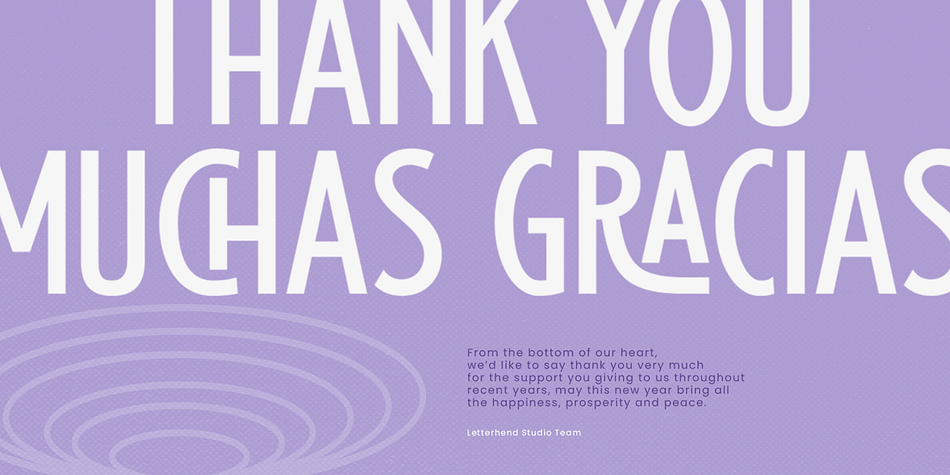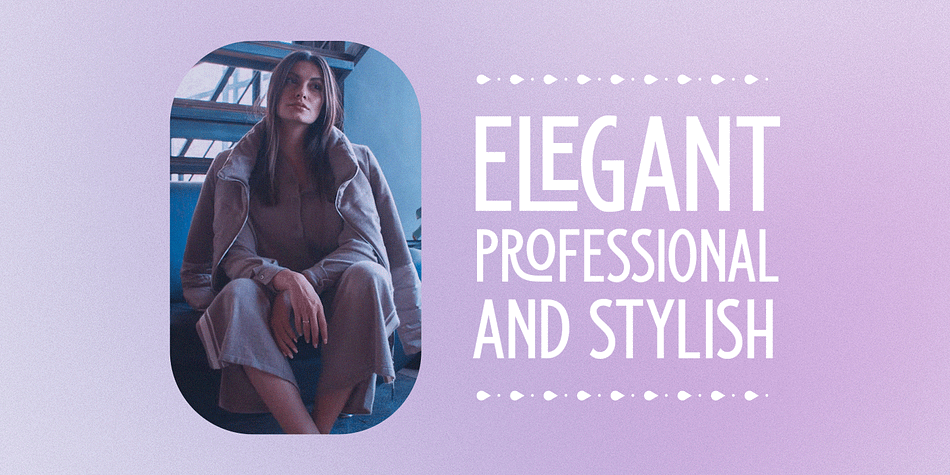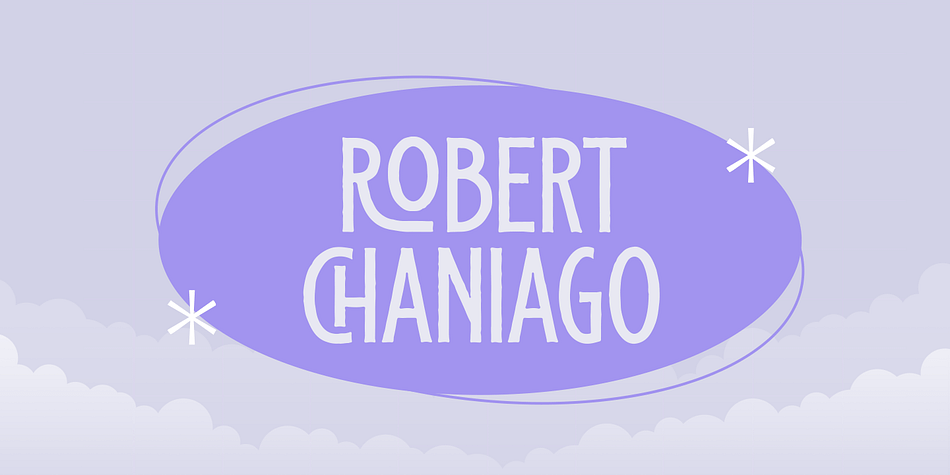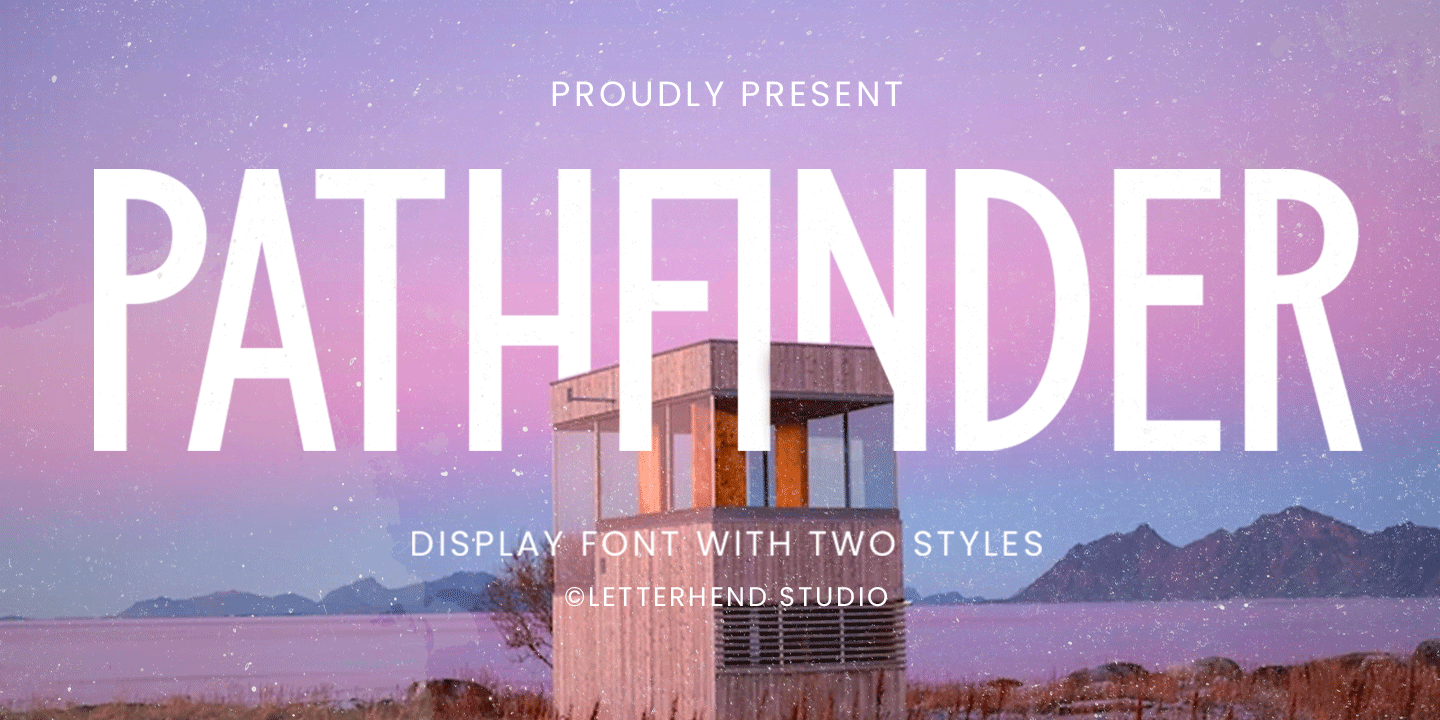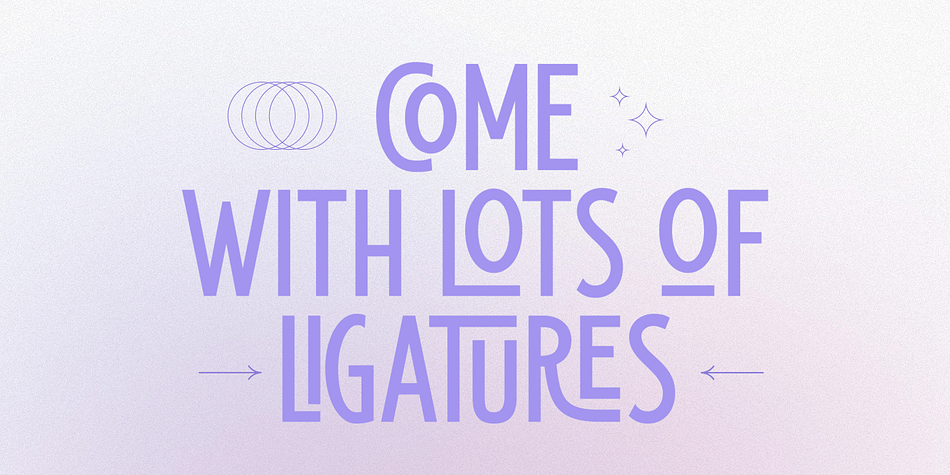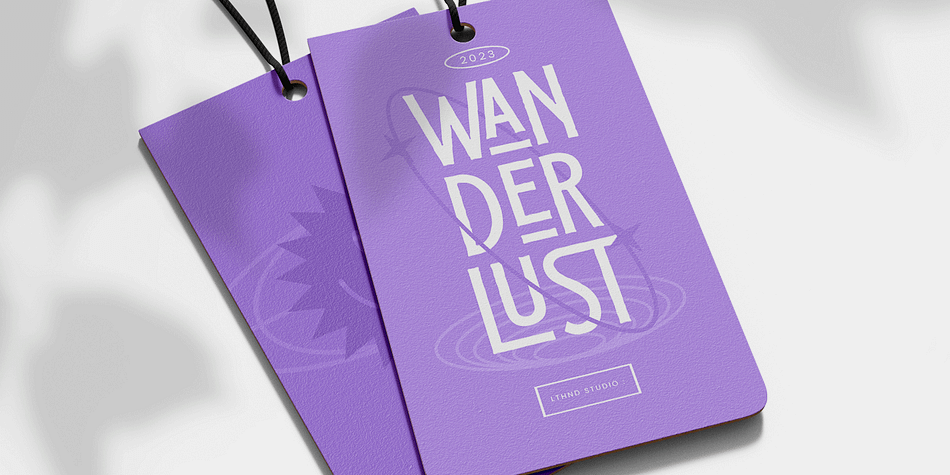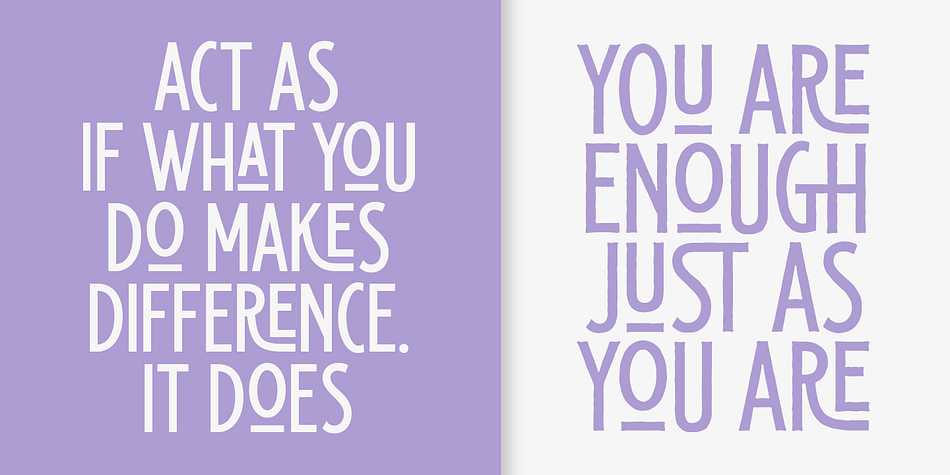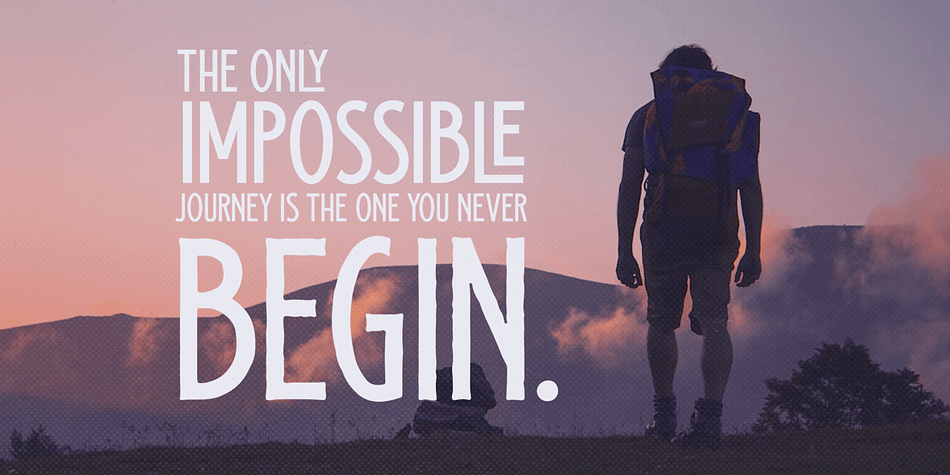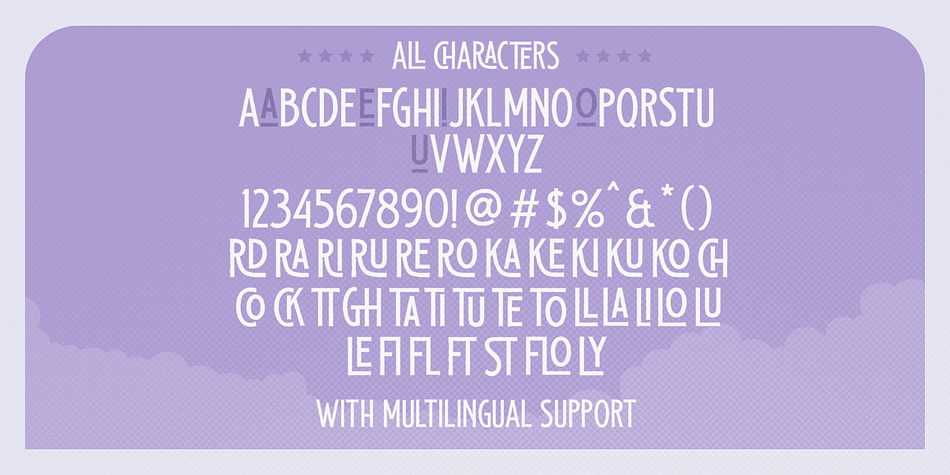
PATHFINDER
Designed by Hendry Juanda, Pathfinder is a display sans and retro font family. This typeface has two styles and was published by Letterhend Studio.
Pathfinder is a display font with two style. This font looks great to be used for modern and minimalistic design theme. The stylistic alternates and ligatures make this font event more unique and stands from the crowd. This font perfectly made to be applied especially in logo, and the other various formal forms such as invitations, labels, logos, magazines, books, greeting / wedding cards, packaging, fashion, make up, stationery, novels, labels or any type of advertising purpose.
- Alternate & Ligatures